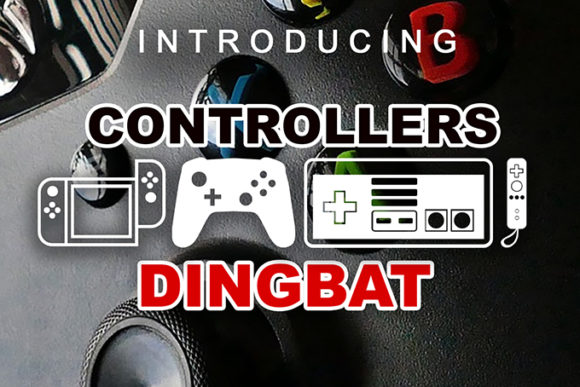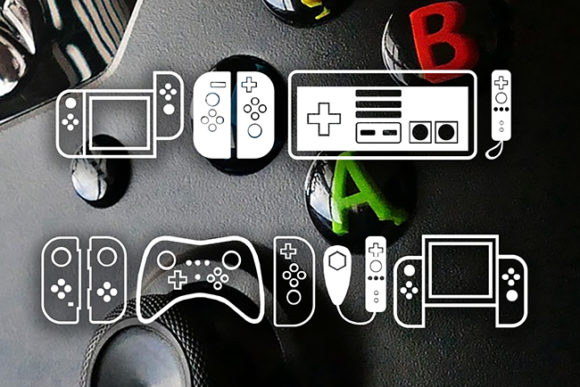
Controllers Font
About the Controllers Font
The wait is over! The incredible Controllers Font is now available for your design toolkit. Controllers is an awesome dingbats font containing various gaming consoles, controllers, and video game icons.
Controllers excels in playful headlines, logos for gaming brands, and app icons. Its unique character also makes it ideal for short, impactful taglines or as an element within larger, more complex designs focusing on gaming or pop culture. However, its highly illustrative nature makes it unsuitable for body text or user interfaces requiring high readability.
The font’s personality is undeniably bold and playful, conveying a sense of fun and nostalgia. It works best in projects targeting a young, tech-savvy audience.
For effective pairings, consider combining Controllers with a clean sans-serif like Open Sans for body text, providing a stark contrast and improving readability. Alternatively, a geometric sans-serif like Futura would offer a more modern and sophisticated balance.
Controllers Font Usage Examples
Controllers Font Example